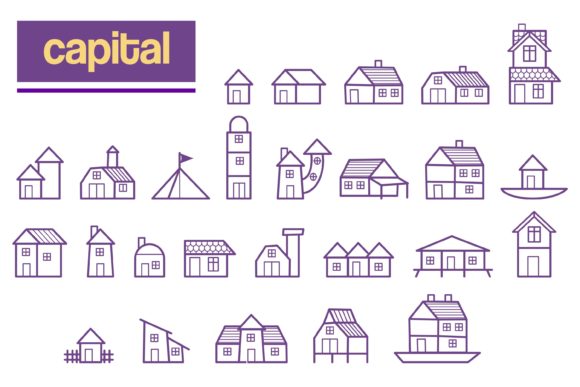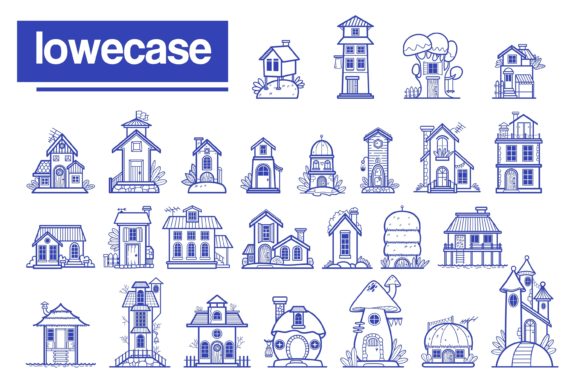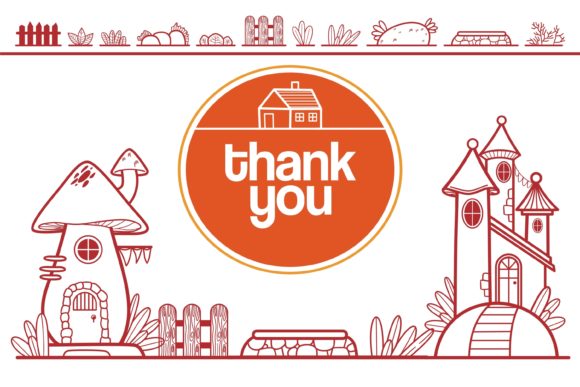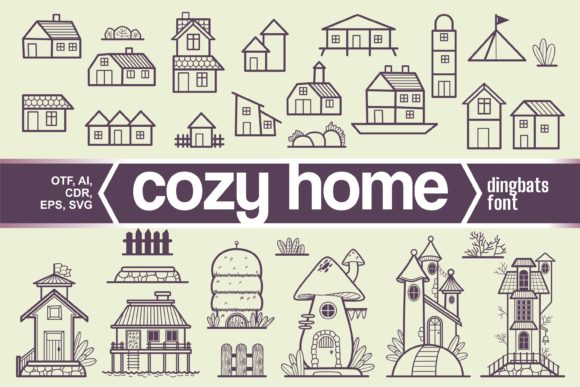
Introducing Cozy Home Font: The Perfect Addition to Your Design Toolbox
Are you a designer, crafter, or digital artist looking for a unique and sweet font to elevate your projects? Look no further than Cozy Home Font! This charming dingbats font is sure to capture the hearts of anyone who lays eyes on it. With its distinct style and versatility, Cozy Home is the perfect addition to your design toolbox.
The Charm of Cozy Home Font
Cozy Home Font is a one-of-a-kind dingbats font that exudes warmth and coziness. Its unique design makes it incredibly fitting for a wide range of projects, from crafting and digital designing to presentations and greeting card making. The font’s sweet and charming style is sure to add a touch of personality to any design, making it perfect for crafters, designers, and artists who want to create something truly special.
What Makes Cozy Home Font So Versatile?
Cozy Home Font’s versatility is one of its standout features. This font can be used in a variety of projects, including:
- Crafting: Use Cozy Home Font to add a personal touch to your scrapbooking, journaling, and other paper crafting projects.
- Digital Designing: Add a touch of warmth and personality to your digital designs, such as social media graphics, blog posts, and website headers.
- Presentations: Use Cozy Home Font to create engaging and visually appealing presentations that will capture your audience’s attention.
- Greeting Card Making: Create beautiful and heartfelt greeting cards for special occasions, such as birthdays, holidays, and weddings.
Why Choose Cozy Home Font?
So, why choose Cozy Home Font over other fonts? Here are just a few reasons:
- Unique Style: Cozy Home Font has a distinct style that sets it apart from other fonts. Its sweet and charming design makes it perfect for adding a personal touch to your projects.
- High-Quality Design: Cozy Home Font is designed with high-quality graphics, ensuring that it looks great in any project.
Tips for Using Cozy Home Font
Here are a few tips for using Cozy Home Font in your projects:
- Experiment with Different Sizes: Cozy Home Font looks great in a variety of sizes, from small to large. Experiment with different sizes to find the one that works best for your project.
- Pair with Other Fonts: Cozy Home Font pairs well with other fonts, such as script fonts and sans-serif fonts. Experiment with different font combinations to find the one that works best for your project.
- Use in Combination with Images: Cozy Home Font looks great in combination with images, such as illustrations and photographs. Use it to add a touch of personality to your projects.